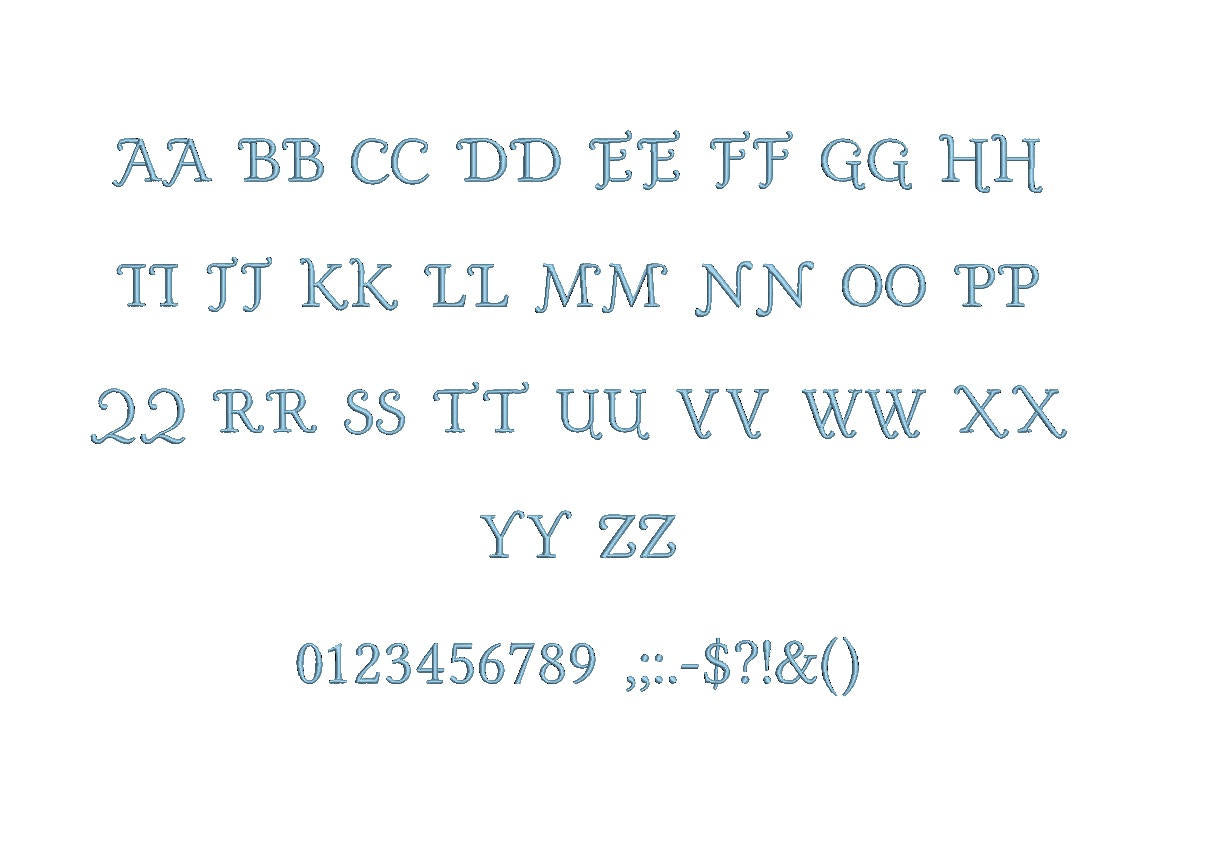
Satin Stitches (with auto stitch for the larger sizes)
This Embroidery Font Alphabet set contains: 26 upper case letters 0 to 9 numbers 11 punctuation marks $(),;.:-&?!